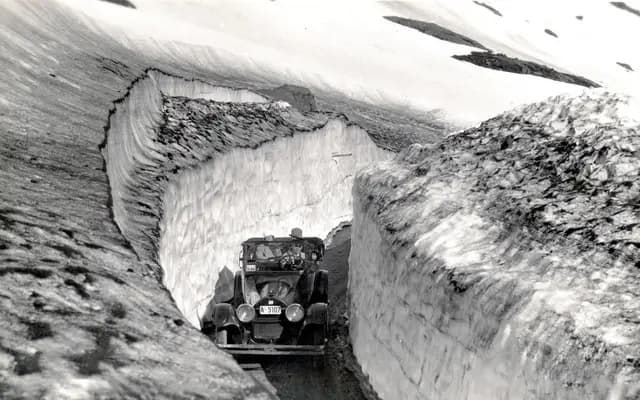
Store Norske Jernskrift
Store Norske Skriftkompani · Arve Båtevik
A typeface derived from Norway's 1929 official car number plate alphabet, Vertikal Jernskrift, expanded into a full display family for branding and editorial use.
Designed by Arve Båtevik, it grows from the numerals and limited letterforms of Vertikal Jernskrift, the standardised iron-letter alphabet introduced for Norwegian car plates on 17 January 1929. The original design drew on hand-painted road signs of the era, and a bolder, wider variant inspired by the style required on industrial vehicles is also offered. Developed as part of the Skrift i Oslo project to revive Oslo's visual dialect, the typeface now appears in public signage including the Arbeiderpartiet sign at Youngstorget, with extensive Latin and Sami language support and a broad OpenType feature set.
Derived from Norway's 1929 Vertikal Jernskrift number plate alphabet, itself influenced by hand-painted road signs; the letterforms carry a raw, stencil-like industrial character suited to display use rather than running text.